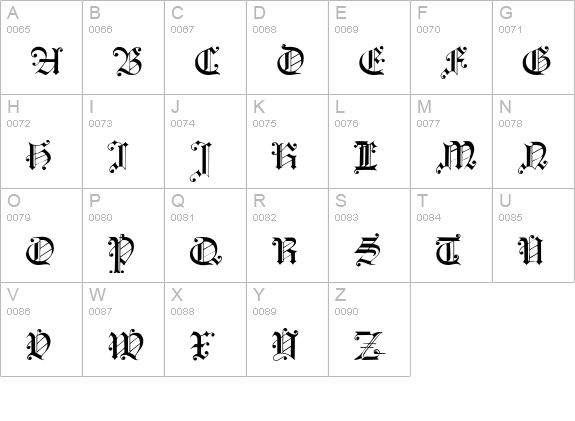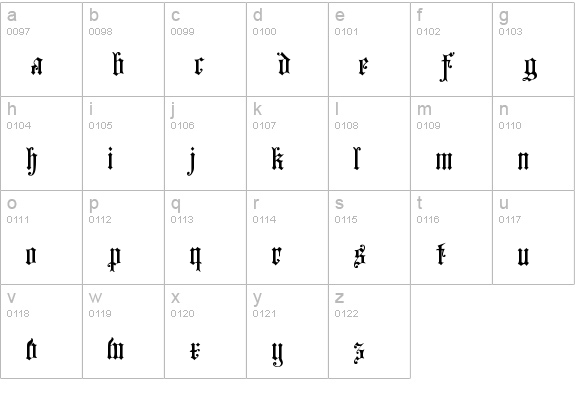
Courtrai Font Details
Courtrai font is a sophisticated and elegant typeface that exudes a sense of timeless charm and classic beauty. With its sleek lines and graceful curves, Courtrai is perfect for adding a touch of refinement to any design project. This versatile font is ideal for a wide range of applications, from logos and branding to invitations and signage. What sets Courtrai font apart is not only its visual appeal but also its accessibility. Unlike many other premium fonts, Courtrai is available for free download at FontsMarket.com. This means that you can enjoy all the benefits of this stunning typeface without having to break the bank. Whether you're a professional designer looking for a new font to add to your collection or a hobbyist looking to enhance your creative projects, Courtrai font is a fantastic choice that won't cost you a penny. Download Courtrai font today and elevate your designs with its timeless elegance and sophistication.